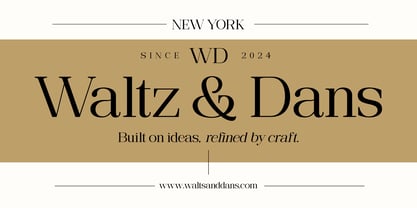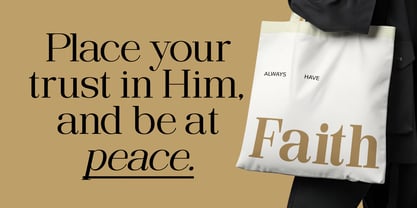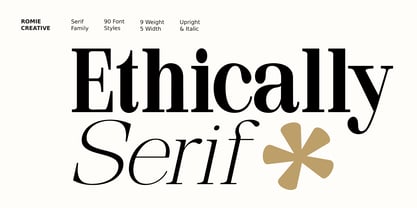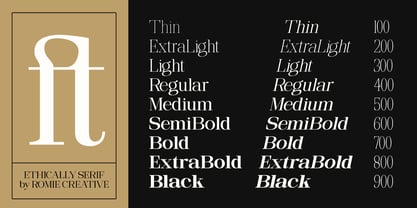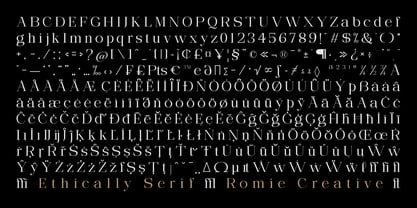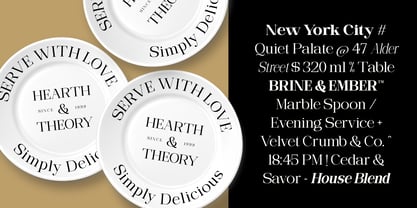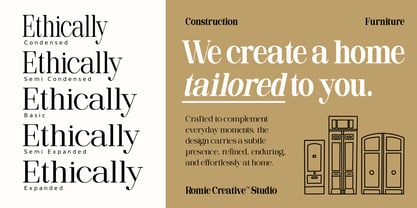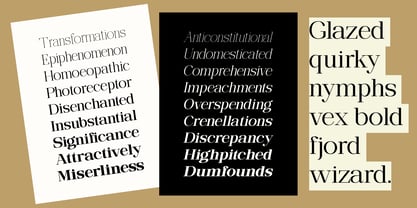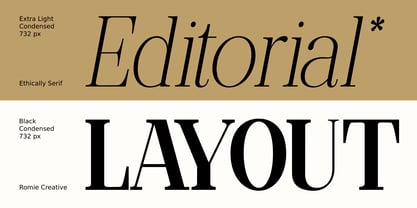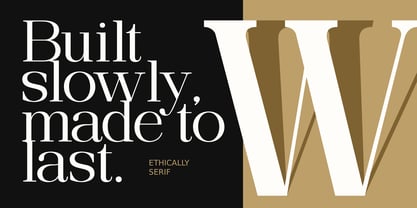
Ethically Serif
by Romie Creative
The Ethically Serif Font Family was designed by Romi Rahmadi and published by Romie Creative. Ethically Serif contains 91 styles and family package options. More about this family
Ethically Serif is a refined serif typeface, designed for clarity, elegance, and versatility. Built with balanced proportions and carefully crafted serif details, this typeface offers a timeless typographic voice that works beautifully across a variety of modern and classic design contexts. As a versatile serif family, Ethically Serif includes Roman, Slanted, and Italic styles, giving designers the flexibility to create dynamic typographic hierarchies while maintaining consistency and sophistication. The letterforms are designed to perform well in both display and long-form text settings, making them suitable for editorial layouts and fine branding work. Ethically Serif is ideal for editorial design, publishing, branding, magazines, books, luxury packaging, and professional typography where legibility and elegance are equally important. With its graceful structure and contemporary refinement, Ethically Serif brings a confident and elegant presence to any design project. Key Features: Roman, Slanted & Italic styles; Elegant and balanced serif construction; Designed for legibility in text and display; Suitable for editorial, branding, and publishing; Clean and sophisticated typographic character.